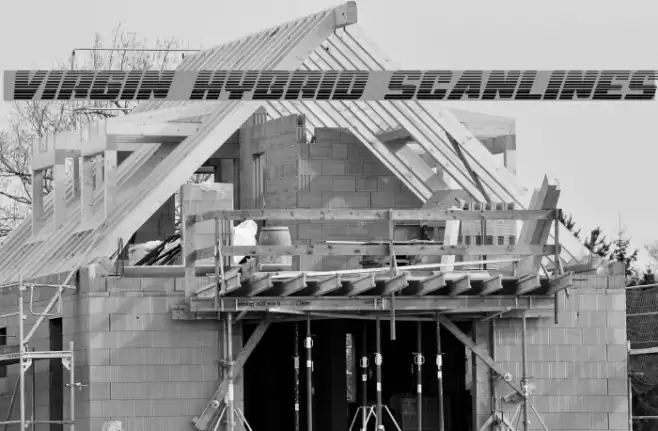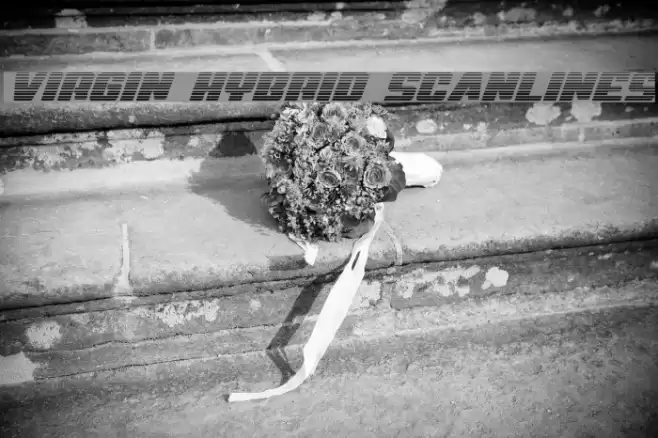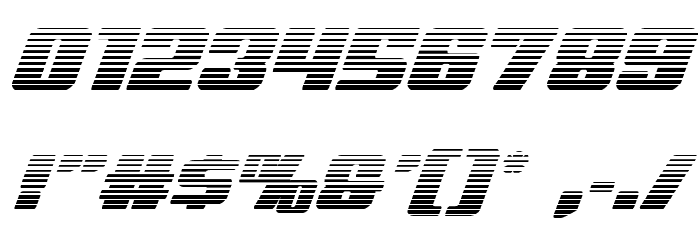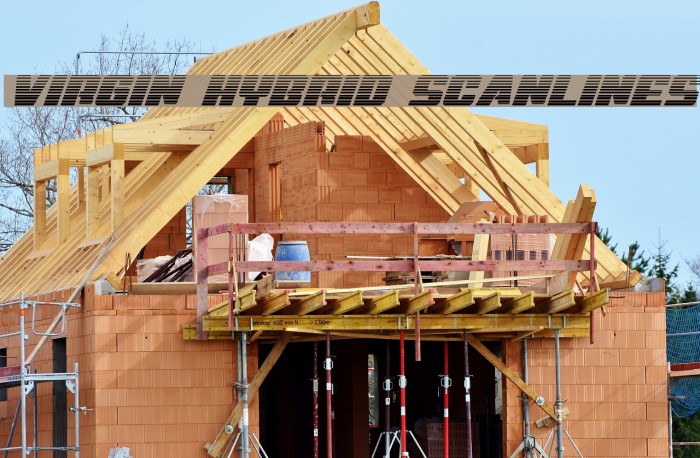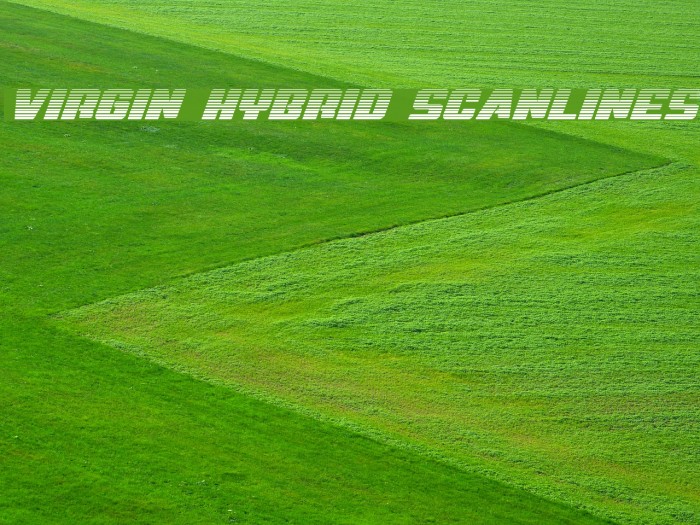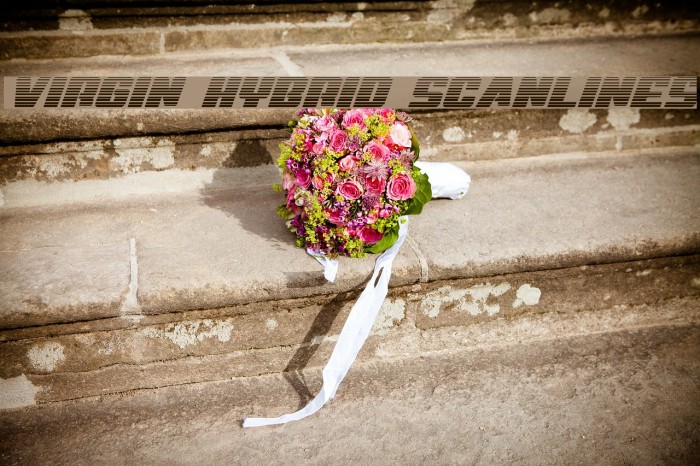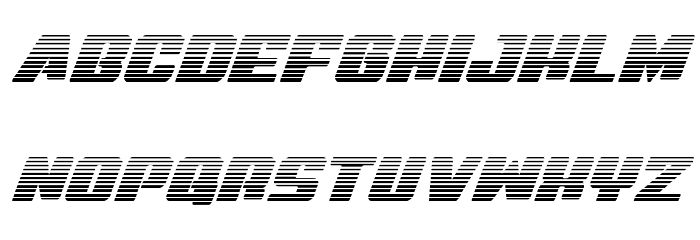
Virgin Hybrid Scanlines Font
Virgin Hybrid Scanlines Description
This font features a bold, futuristic design with a unique scanline effect across each character. The letters are uppercase and have a slanted, italicized appearance, giving them a sense of motion and speed. The horizontal lines create a digital, tech-inspired aesthetic, making it ideal for projects that require a modern and edgy look. The numbers and special characters follow the same design principles, ensuring consistency throughout the typeface. The overall style is striking and attention-grabbing, suitable for headlines or branding that aims to stand out.
A bold, futuristic font with a unique scanline effect and italicized characters from Uncategorized fonts.
- Proposed Projects: Ideal for tech branding, video game titles, futuristic posters, and digital media.